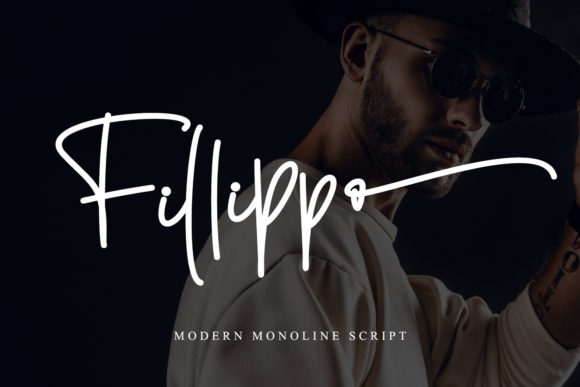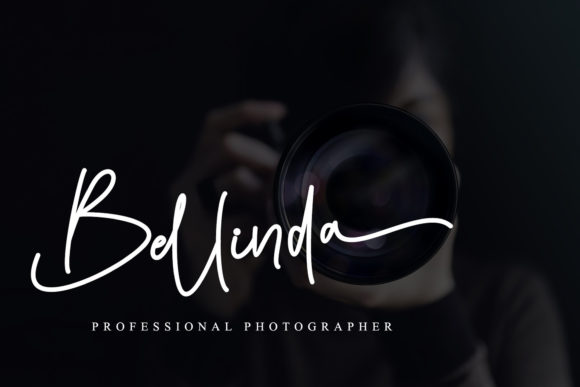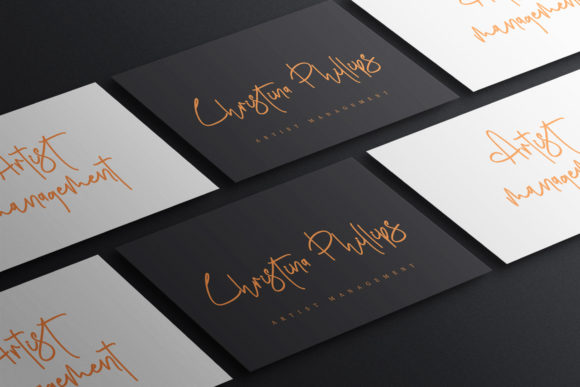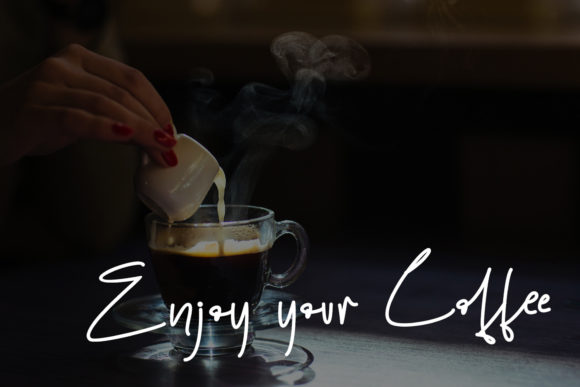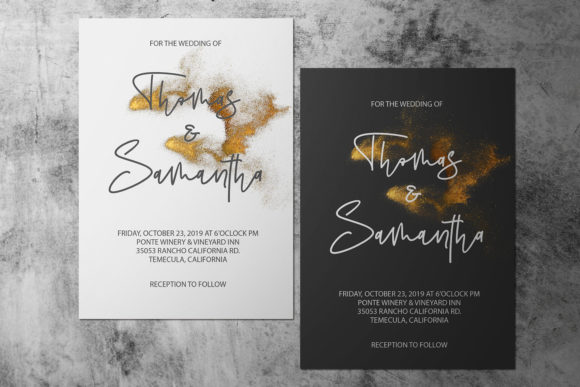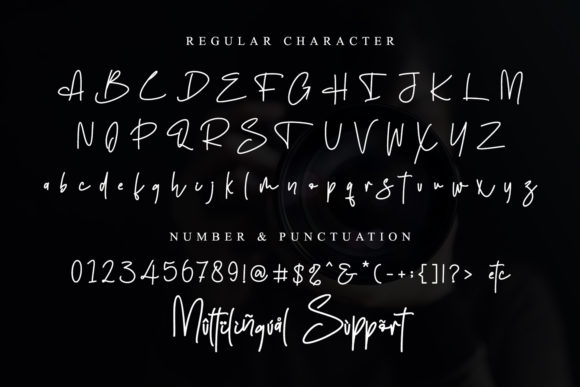
About Fillippo Font
Fillippo is a thin lettered and graceful script font. Fall for its ravishing style and use it to create gorgeous designs. This font is PUA encoded which means you can access all glyphs and swashes with ease!